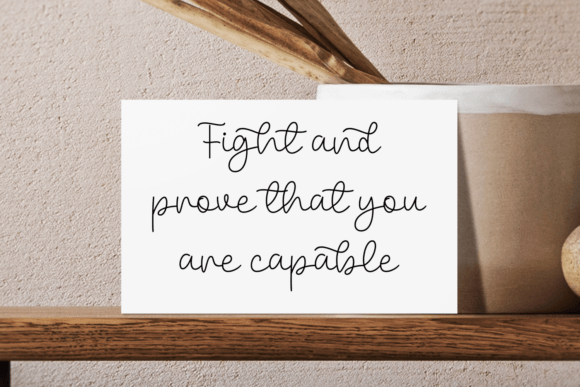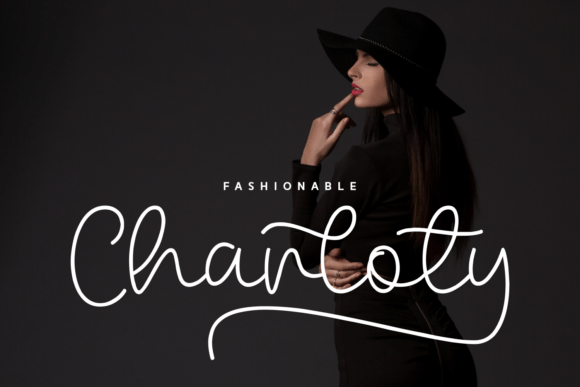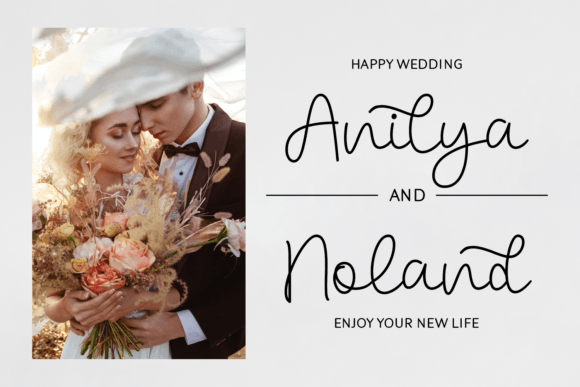
Introduction to Machily Font Font
Fonts play a crucial role in design, and the Machily Font font is a typeface that brings both character and versatility to any project. Whether you’re working on a branding project, a website, or a print design, the Machily Font font offers a unique style that can elevate your work.
Machily is a sleek and sophisticated handwritten script font that exudes modern minimalism.
Its smooth, flowing lines and simple elegance make it versatile for various projects such as branding, fashion editorials, social media graphics, and event invitations With its timeless charm, Machily will effortlessly elevate your designs to new levels of refinement.
Key Features of Machily Font Font
• ✅ High-quality typeface designed for professional use
• ✅ Includes a wide range of glyphs and characters
• ✅ Ideal for logos, branding, websites, and print
Why Choose Machily Font Font?
The Machily Font font is more than just a typeface – it’s a design tool that helps you communicate your message with style and clarity. Its unique character set and versatile design make it suitable for a wide range of applications, from elegant invitations to bold headlines.
With its carefully crafted letterforms and balanced proportions, the Machily Font font ensures readability and visual appeal across all mediums.
What makes Machily Font font special?
The Machily Font font stands out with its unique design, exceptional readability, and versatility across various design applications.